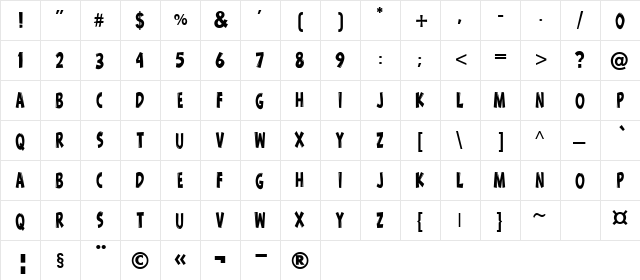
Wow emezing extra extra regular
| Designer | Linafis Studio |
Design Context for Wow emezing extra Typeface
Wow emezing extra is a composed and adaptable typeface that performs quietly and consistently across a wide range of design contexts.